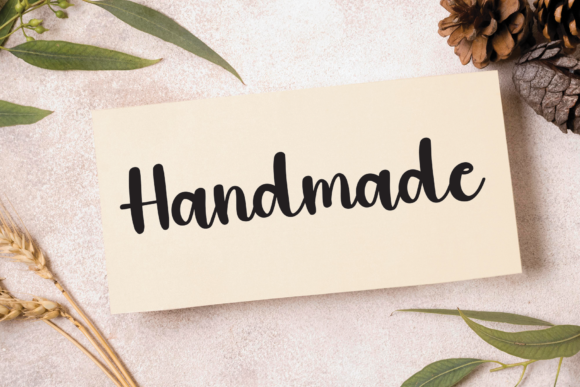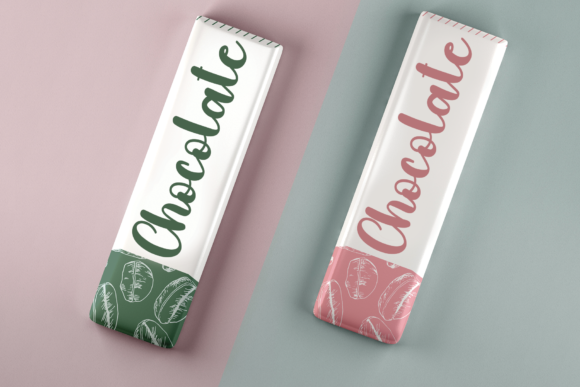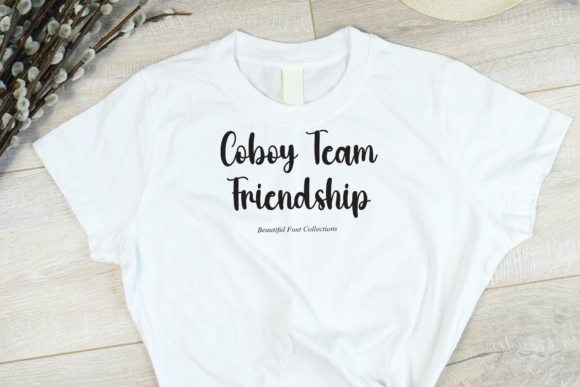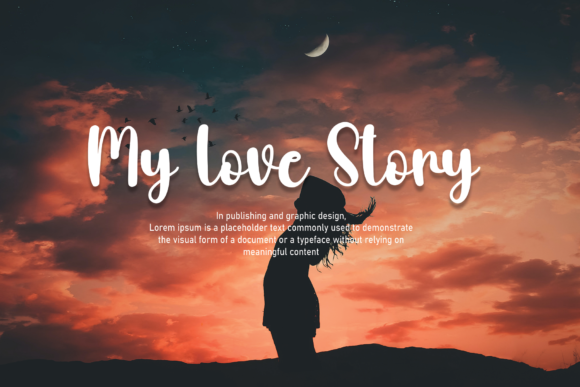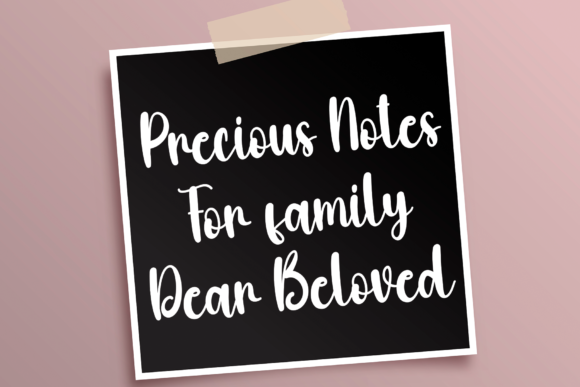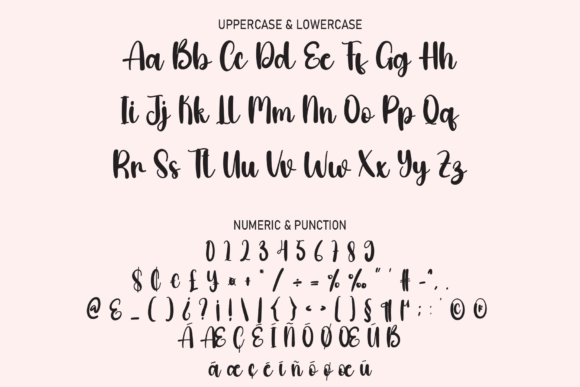
Introducing Body Font: The Perfect Blend of Classic and Modern
Are you tired of using the same old fonts in your design projects? Look no further than Body Font, a stunning handwritten font that is sure to become your new favorite. With its exquisite classy calligraphic influences and contemporary feel, Body Font is the perfect choice for designers and crafters looking to elevate their work to the highest levels.
The Story Behind Body Font
Body Font is a masterfully designed font that combines the elegance of traditional calligraphy with the freshness of modern typography. Its creator, [designer name], aimed to craft a font that would be both timeless and trendy, and we think they’ve succeeded. With Body Font, you can add a touch of sophistication and whimsy to your designs, making it perfect for a wide range of projects, from wedding invitations to branding materials.
What Makes Body Font So Special?
So, what sets Body Font apart from other fonts on the market? Here are just a few of its standout features:
- Classy Calligraphic Influences: Body Font boasts beautiful, flowing lines that evoke the elegance of traditional calligraphy.
- Contemporary Feel: Despite its classic influences, Body Font feels fresh and modern, making it perfect for designers who want to stay on-trend.
- Versatility: Body Font is incredibly versatile, and can be used in a wide range of design projects, from digital to print.
- Easy to Read: With its clear, flowing lines, Body Font is easy to read, even at smaller sizes.
How to Use Body Font in Your Designs
- Wedding Invitations: Body Font is perfect for wedding invitations, with its elegant, sophisticated feel.
- Branding Materials: Use Body Font to add a touch of personality to your branding materials, such as business cards, letterheads, and more.
- Digital Designs: Body Font works beautifully in digital designs, such as social media graphics, blog headers, and more.
- Crafting Projects: If you’re a crafter, you’ll love using Body Font in your projects, such as handmade cards, scrapbooking, and more.
Tips for Getting the Most Out of Body Font
- Experiment with Sizes: Don’t be afraid to experiment with different sizes of Body Font to find the perfect fit for your design.
- Play with Colors: Body Font looks beautiful in a range of colors, so don’t be afraid to get creative and try out different hues.
- Mix and Match: Try pairing Body Font with other fonts to create a unique, eye-catching look.